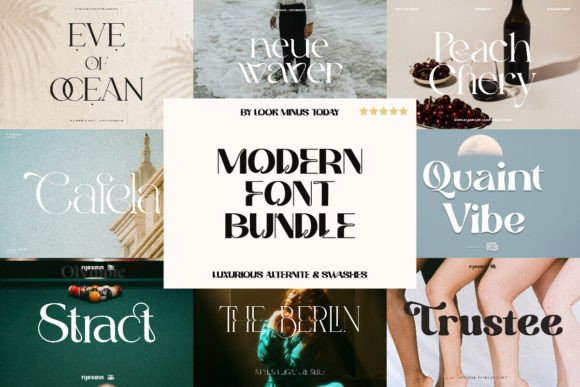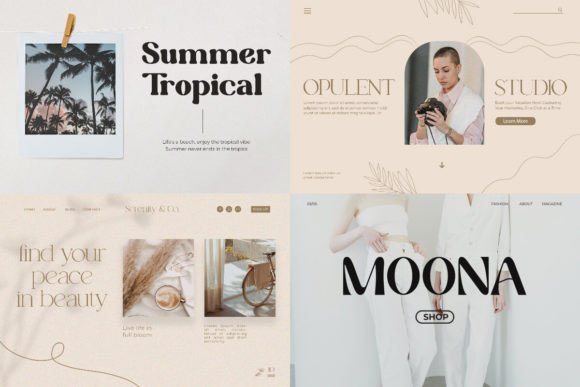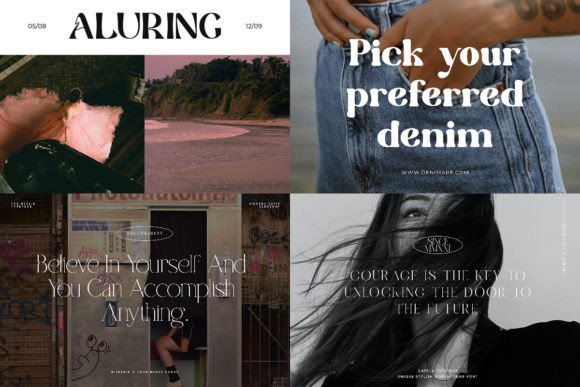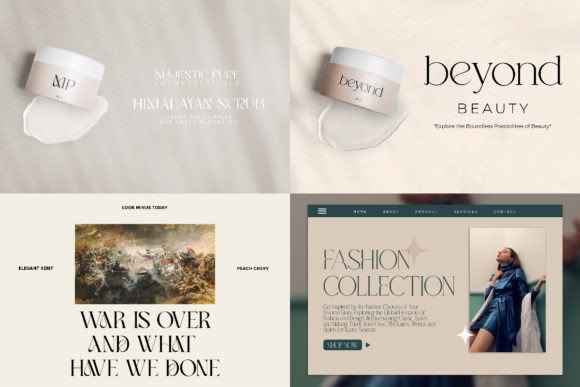
About the Modern Bundles  Font
We are excited to introduce Modern Bundles  Font, a must-have typeface for any serious designer. This bundle contains 8 typefaces including 8 high-quality fonts. All our best selling unique fonts!
There are Serif Font all with that modern stylish look.
* Eve Of Ocean Font
* Neue Waver Font
* Peach Chery Font
* Cafela Font
* Quaint Vibe Font
* Stract Font
* The Berlin Font
* Trustee Font
The Modern Bundles Font collection excels in display applications such as headlines, logos, and short-form text on posters or packaging. Its stylish serif designs lend themselves well to projects requiring a touch of modern elegance. However, the intricate details may reduce readability in body text or long paragraphs, making it unsuitable for UI or extensive content.
This collection’s overall personality is sophisticated yet approachable. Brands aiming for a refined, contemporary image would find these fonts ideal. Pairings depend on the specific typeface used, but generally, clean sans-serif fonts like Open Sans or Lato complement the serifs, while a playful script like Allura could add a touch of personality for certain applications within the bundle.
For a more minimalist approach, consider pairing with geometric sans-serifs like Montserrat or Futura. The contrast in styles creates visual interest while maintaining a cohesive and professional aesthetic.